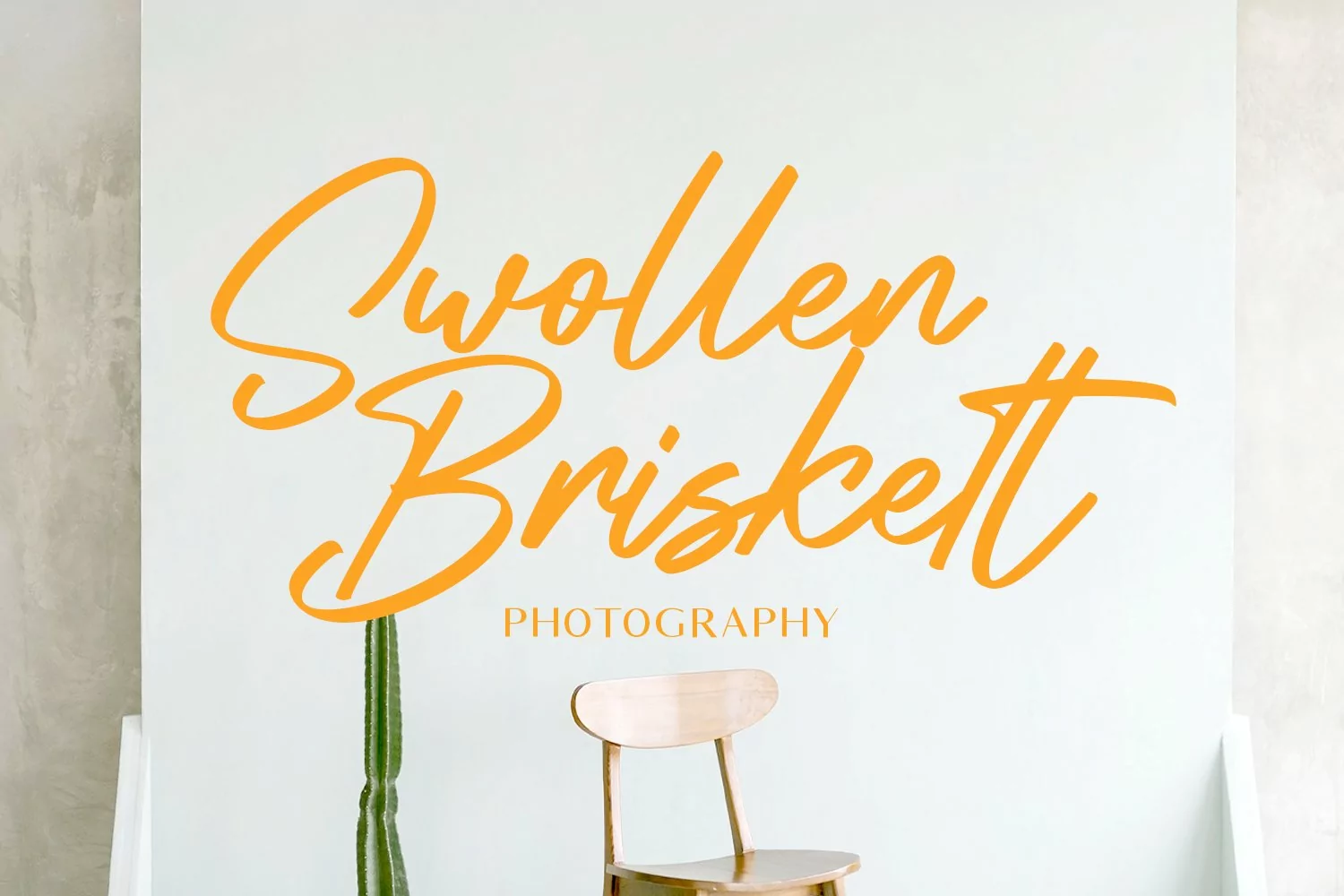
Westclock is a Script font. With regular felt-tip stroke, fun character with a bit of ligatures. To give you an extra creative work. Westclock font support multilingual more than 100+ language. This font is good for logo design, Social media, Movie Titles, Books Titles, a short text even a long text letter and good for your secondary text font with sans or serif. Make a stunning work with Westclock font.